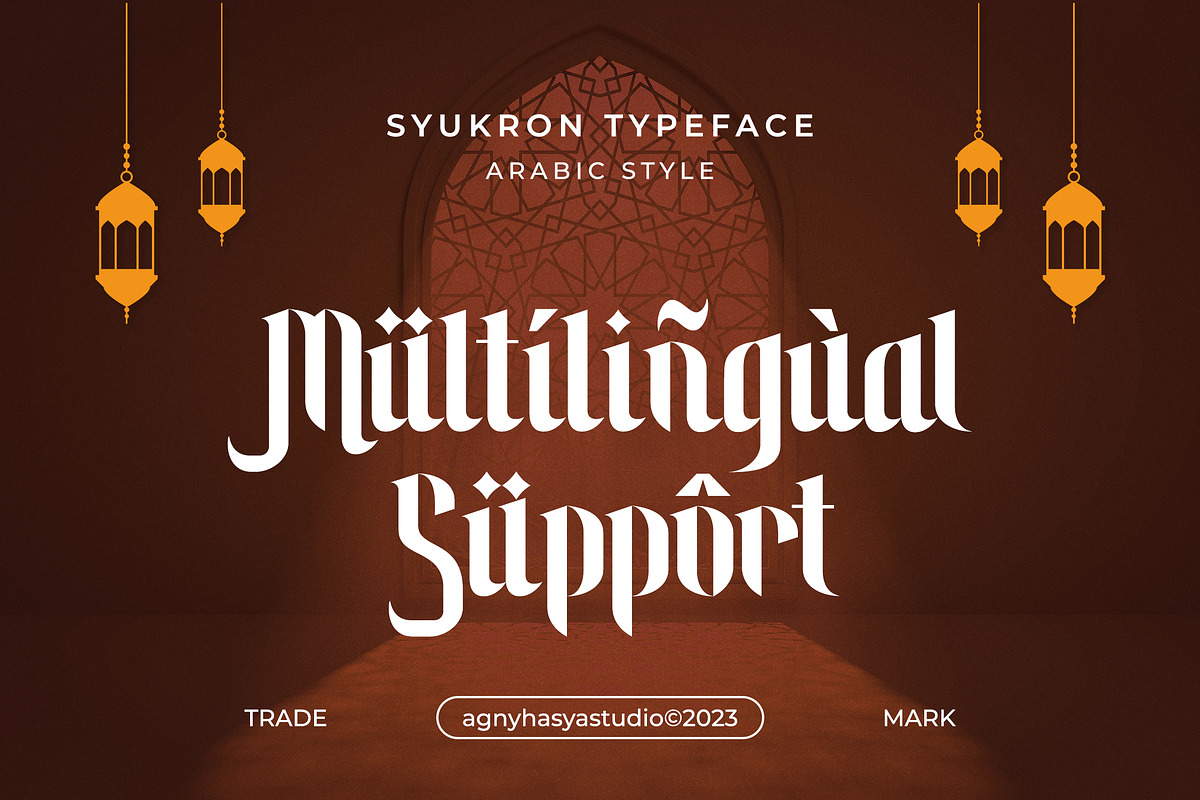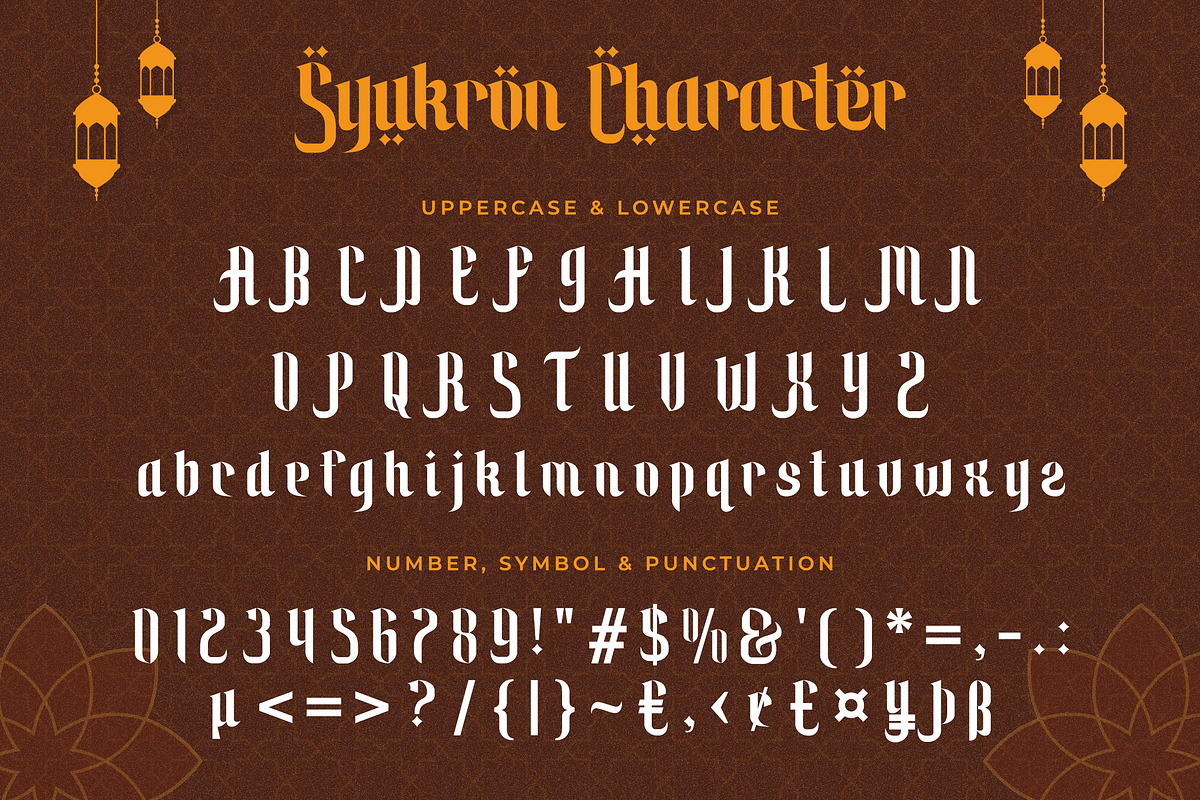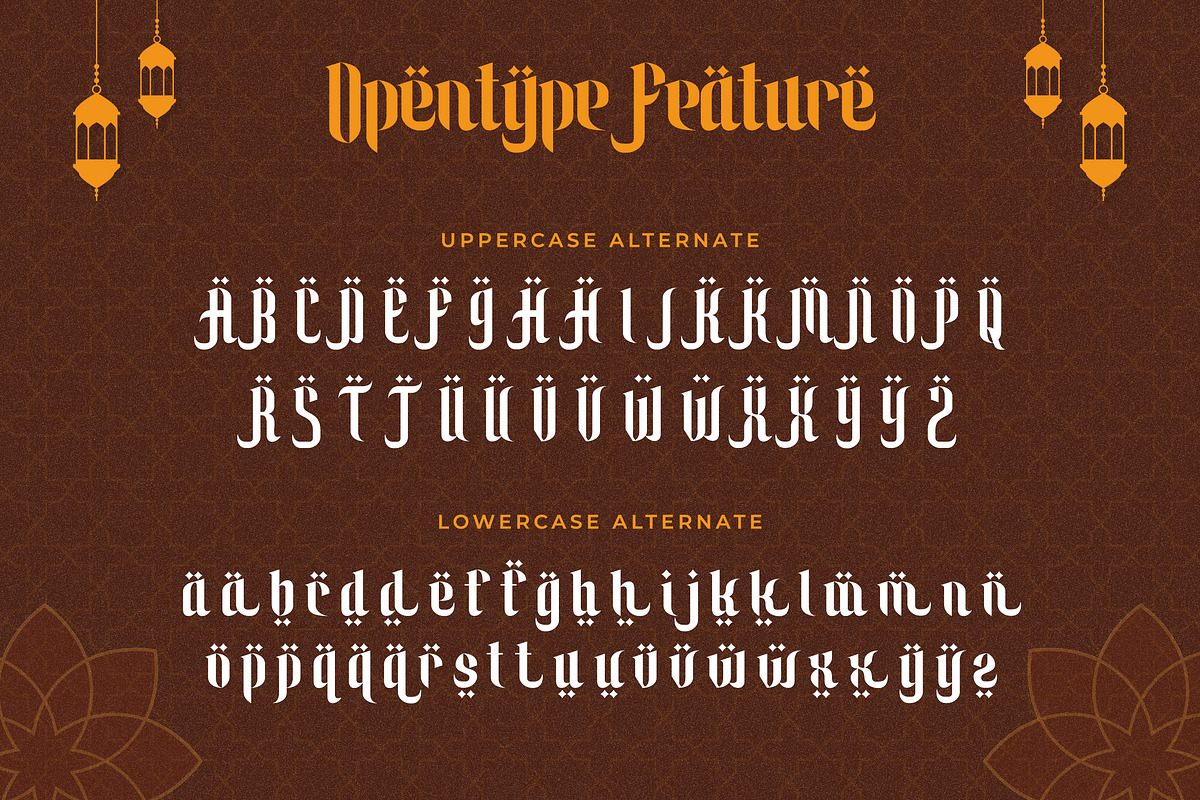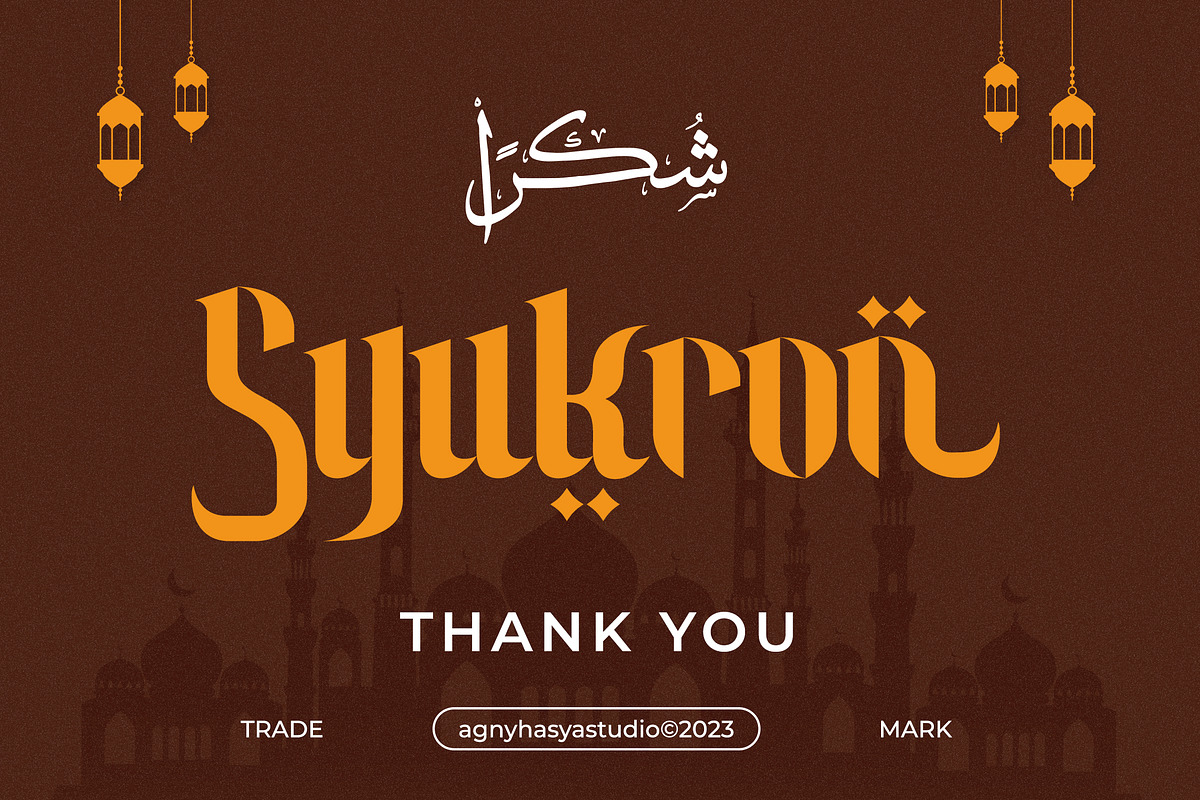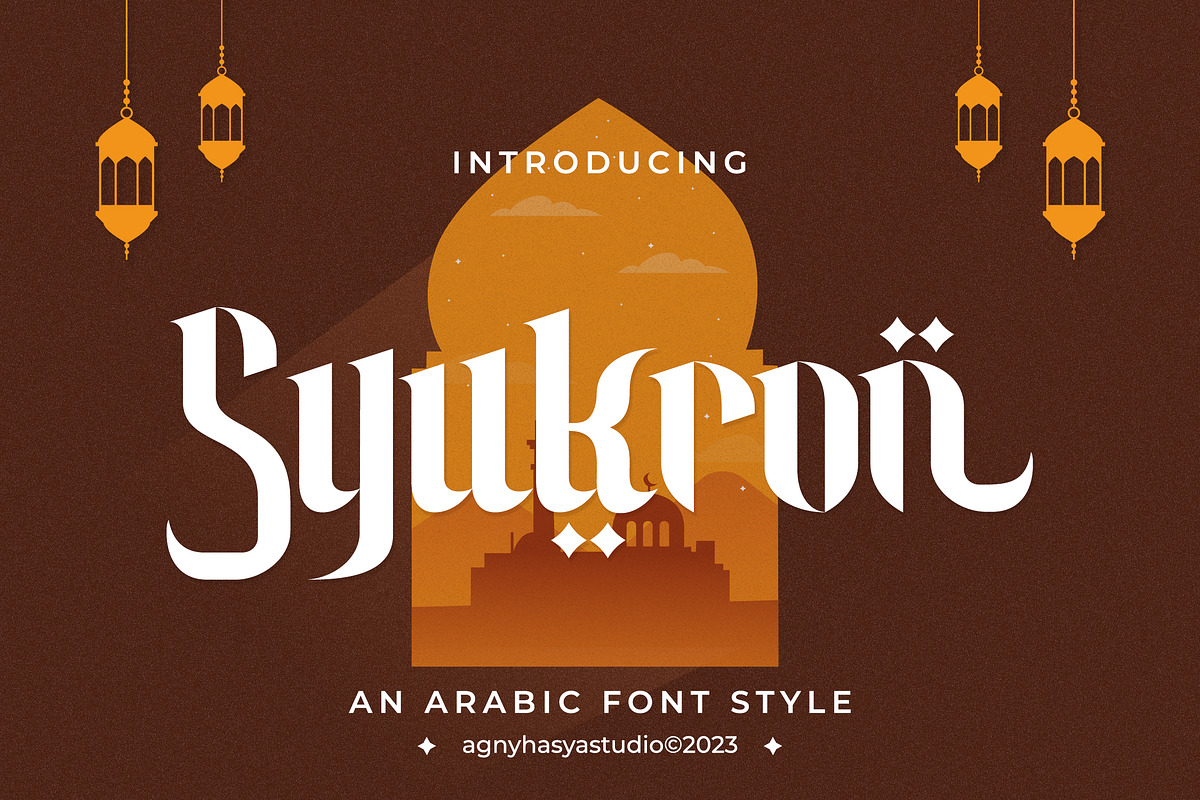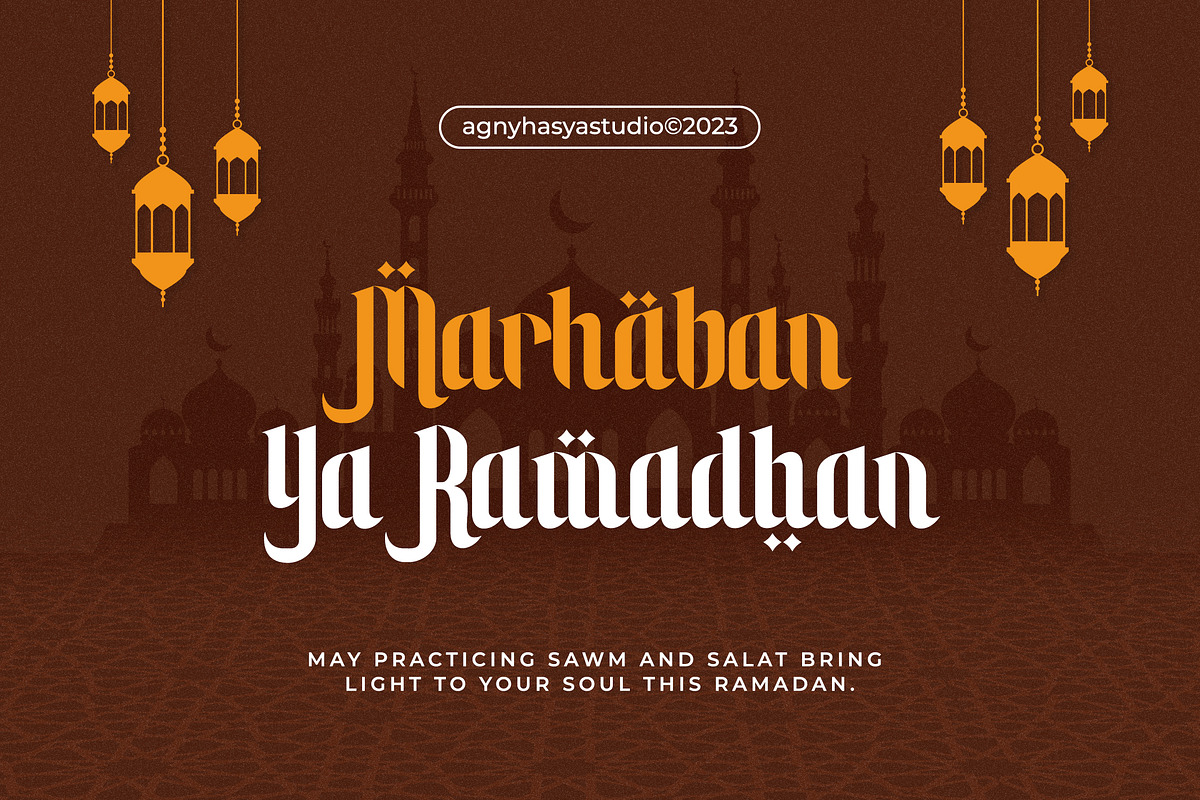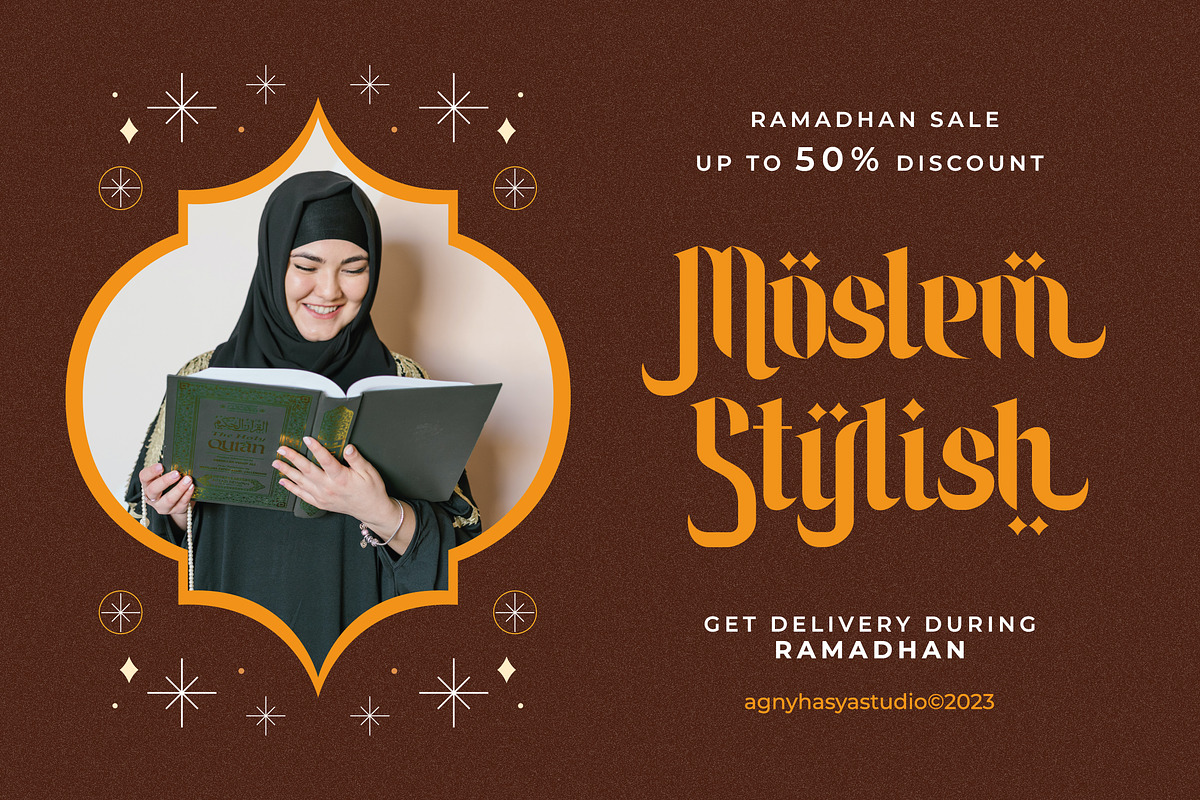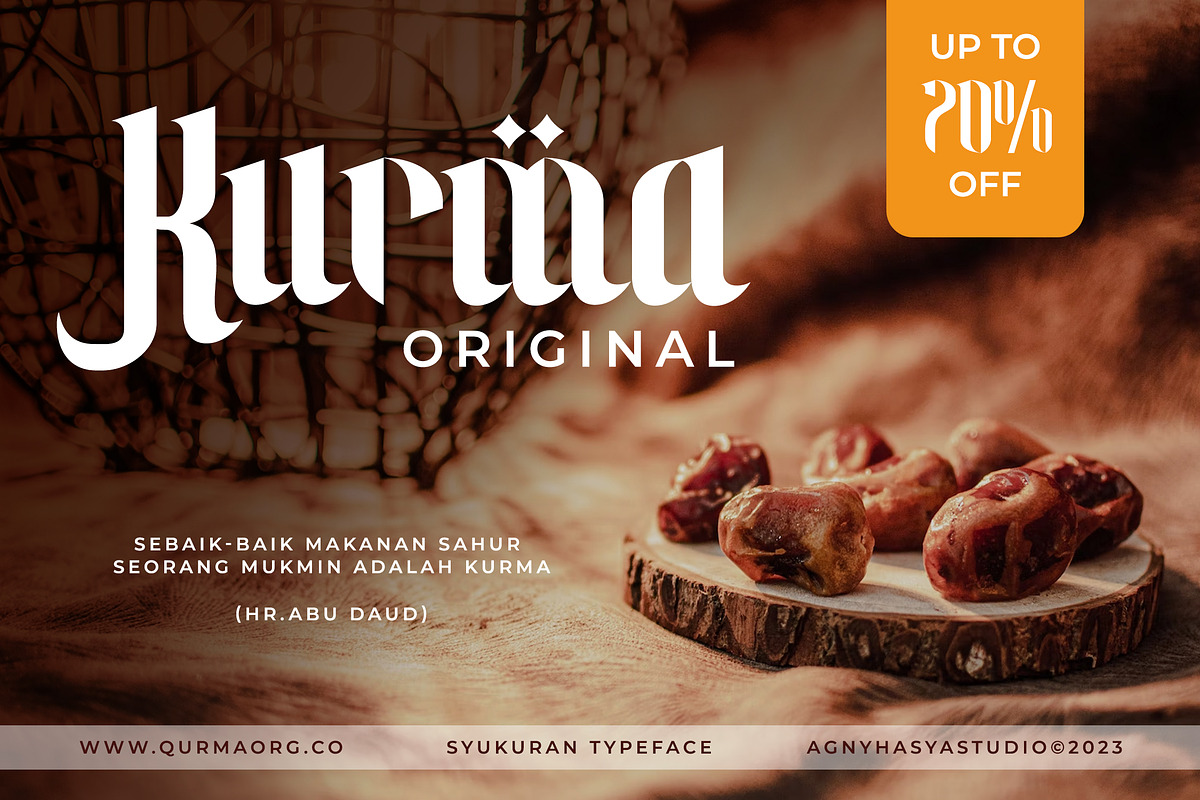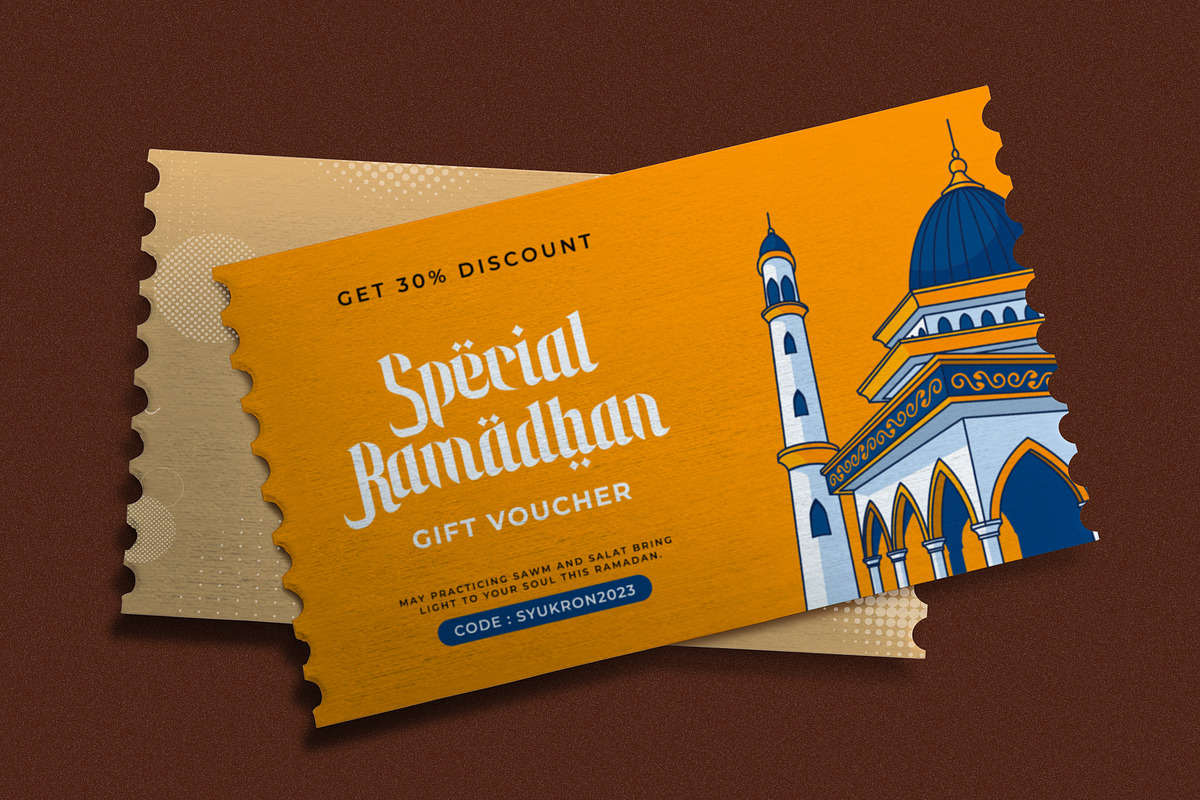
Syukron - Arabic Font Style
Syukron - Arabic Display Font Is a Stunning Arabic-Style Display Typeface That Is Ideal for Ramadan Events and Other Islamic Event Design Projects.
Perfect for your design projects like logos, branding, advertising, product designs, stationery, magazine designs, book/cover title designs, photography, art quotes, Islamic events, special events, labels, product packaging, and more.
- Opentype Features